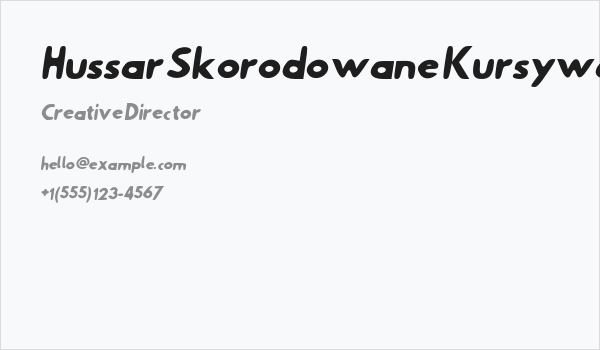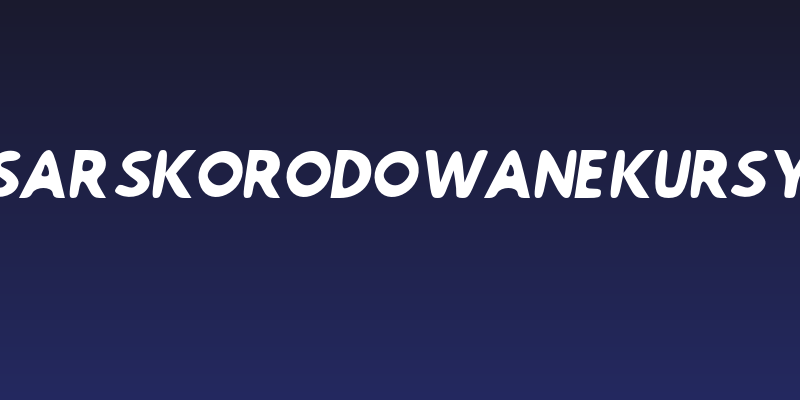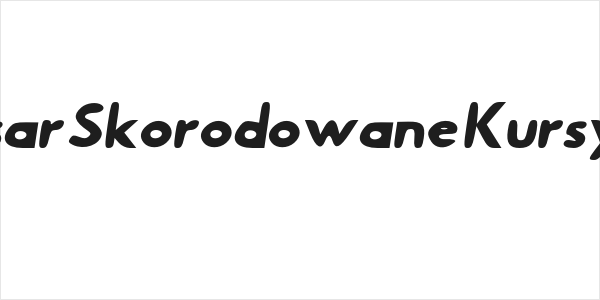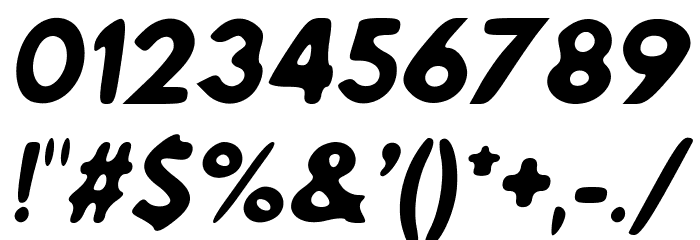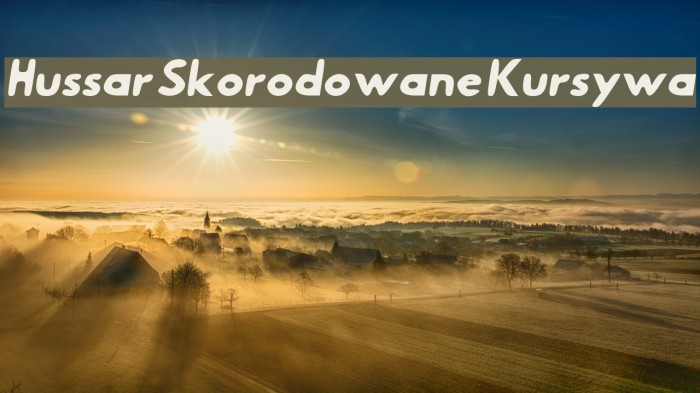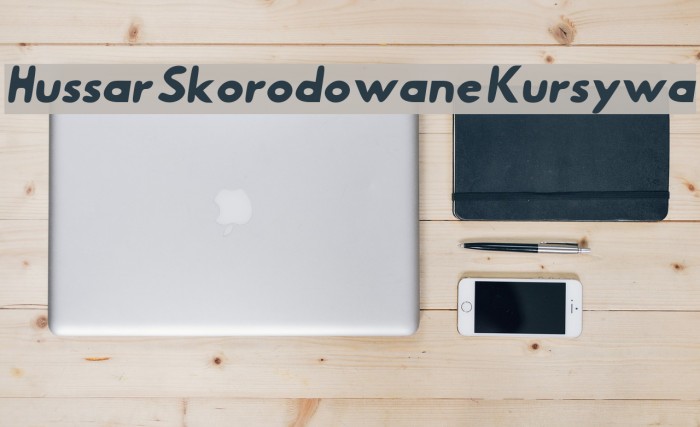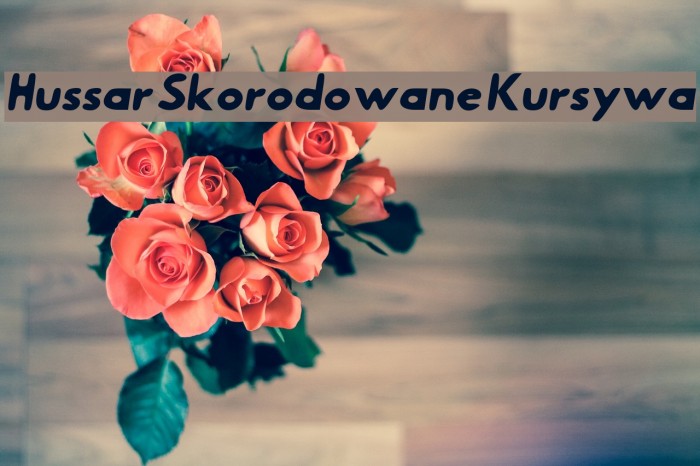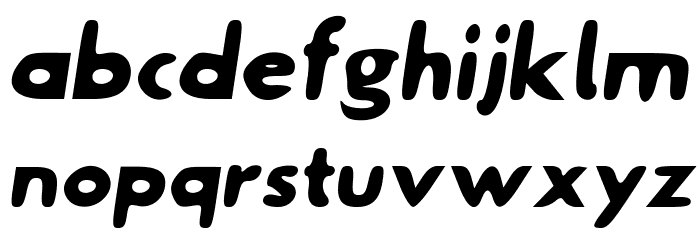
Hussar Skorodowane Kursywa Font
Hussar Skorodowane Kursywa Description
This font features a playful and dynamic style with a handwritten appearance. The characters are bold and slightly slanted, giving them an energetic and informal look. The strokes are rounded and smooth, contributing to a friendly and approachable feel. The uppercase and lowercase letters maintain a consistent style, with the lowercase letters having a slightly more whimsical touch. The numerals and special characters are designed to match the overall playful aesthetic, making this font suitable for creative and casual applications.
| Proposed Projects | Ideal for children's books, playful branding, casual invitations, and creative posters. |